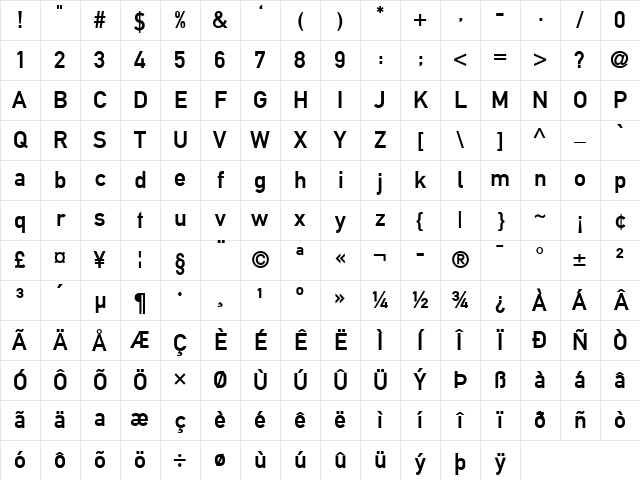
Complete Alte DIN 1451 Mittelschrift gepraegt Regular glyph index. Displaying only characters natively supported by Alte DIN 1451 Mittelschrift gepraegt Regular font.
Alte DIN 1451 Mittelschrift gepraegt is a composed and adaptable typeface that performs quietly and consistently across a wide range of design contexts.
Who designed the Alte DIN 1451 Mittelschrift gepraegt Regular font?
This font was published by Peter Wiegel, nach dem Entwurf von Ludwig Goller (1936). Check the technical specs section for copyright and designer details.